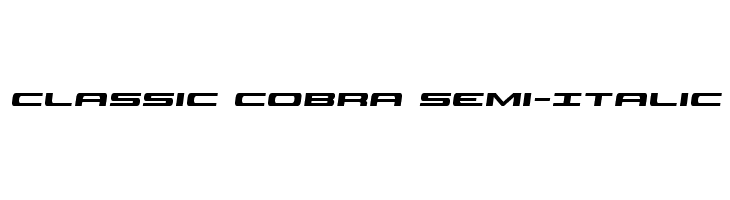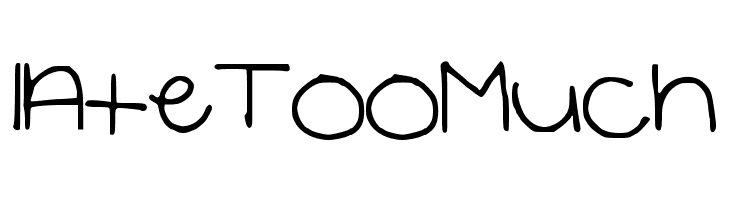
A distressed typewriter-style font with a strikethrough effect across all characters.
A decorative font with a stitched, handcrafted appearance.
A playful, whimsical font combining script and sans-serif elements.
A decorative font with playful, heart-themed illustrations perfect for romantic projects.
A playful, handwritten font with irregular strokes and a casual vibe.
Bold, oblique font with a dynamic and modern style.
Modern sans-serif with geometric shapes.
A bold, geometric font with clean lines and a modern aesthetic.